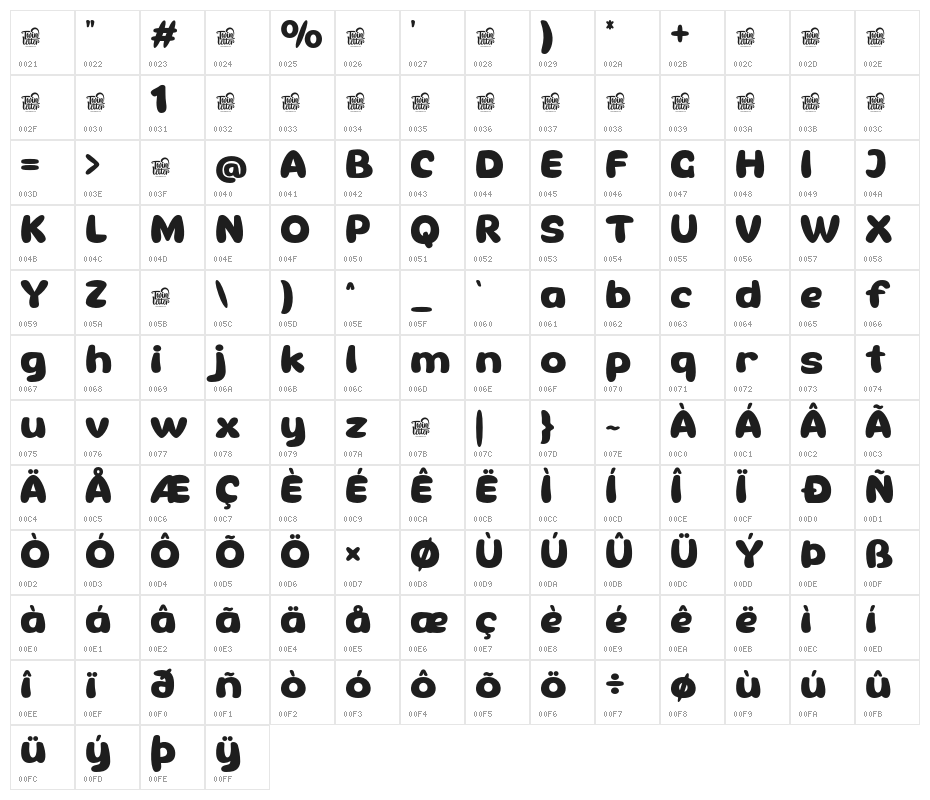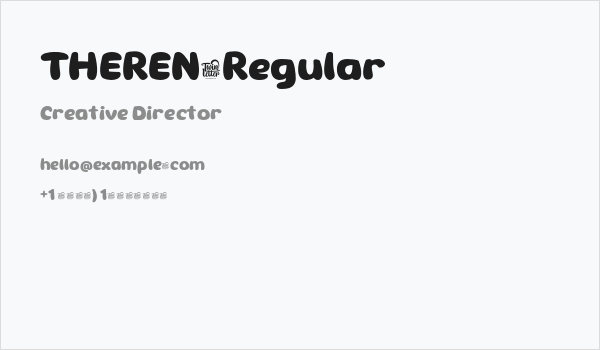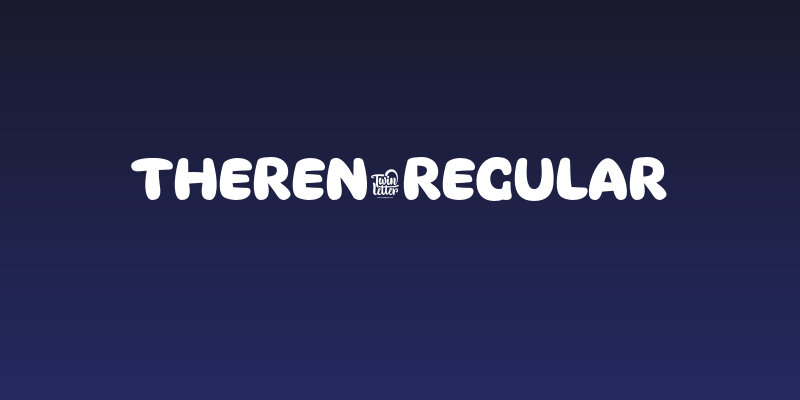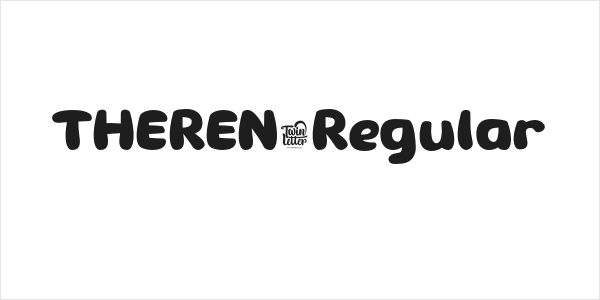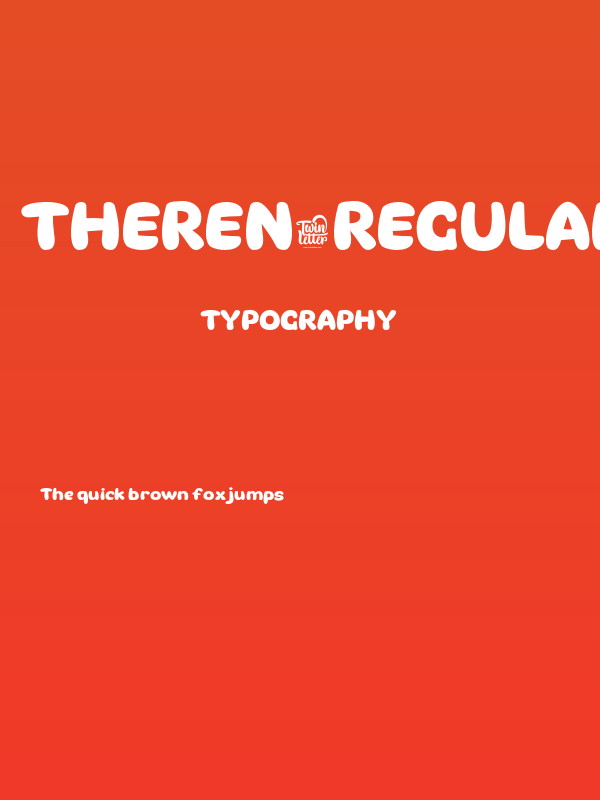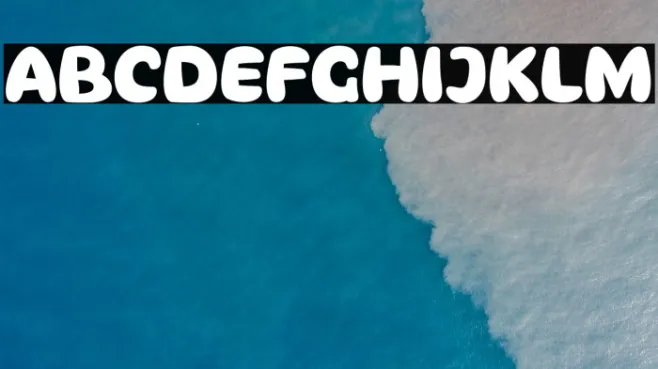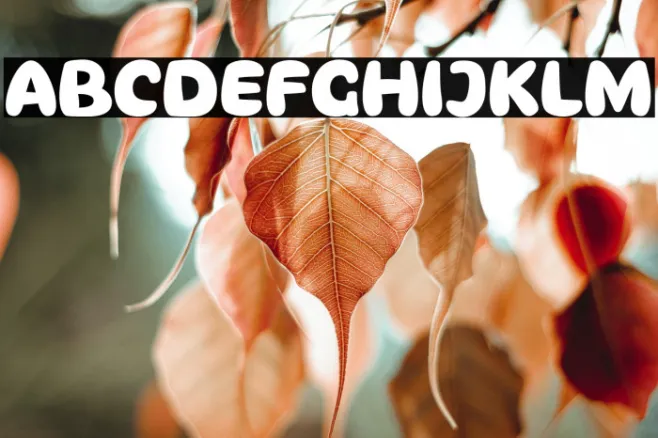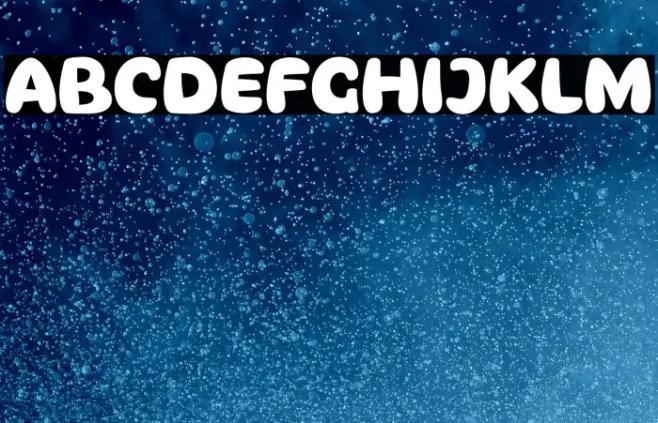
THEREN-Regular Font
THEREN-Regular Description
This font features a playful and bold design with rounded edges that give it a friendly and approachable appearance. The characters are uniformly thick, creating a consistent and cohesive look across both uppercase and lowercase letters. The numbers and special characters maintain the same rounded and bold style, ensuring visual harmony throughout. Its unique style makes it stand out, while the rounded forms add a touch of softness and warmth. This font is ideal for projects that require a fun and engaging aesthetic.
| Proposed Projects | Ideal for children's books, playful branding, casual invitations, and social media graphics. |